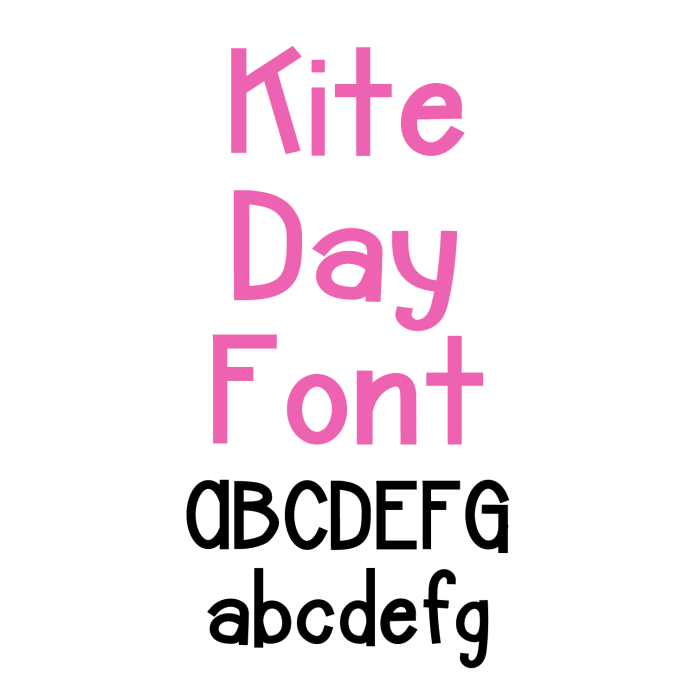
Say hello to Kite Day Font—a cute and playful handwritten font that’s perfect for adding cheerful charm to all your crafting projects! With its bouncy letters and whimsical style, Kite Day is ideal for stickers, labels, greeting cards, party decorations, classroom materials, and custom gifts. This fun and friendly font is easy to read and designed for smooth cutting with your cutting machine, making it perfect for vinyl projects, scrapbooking, and printables. Whether you’re creating for kids, teachers, or just love playful design, Kite Day Font brings joy to every project. Download it today and start crafting happy!